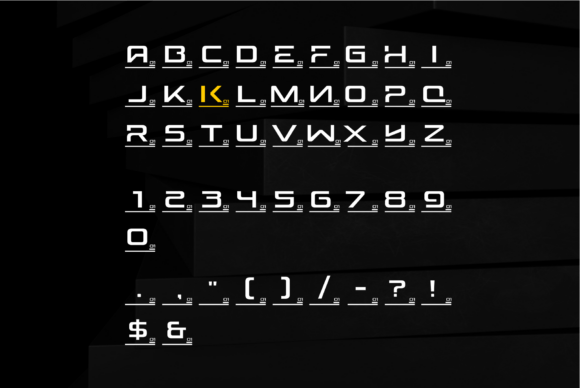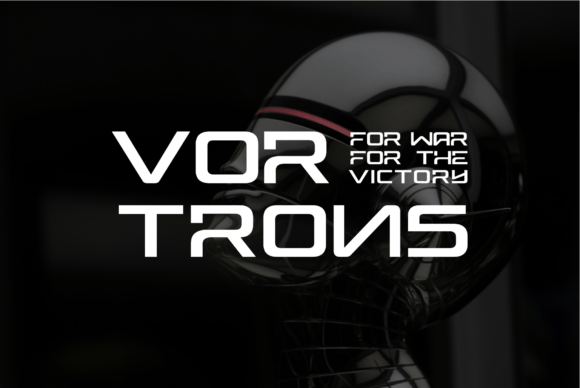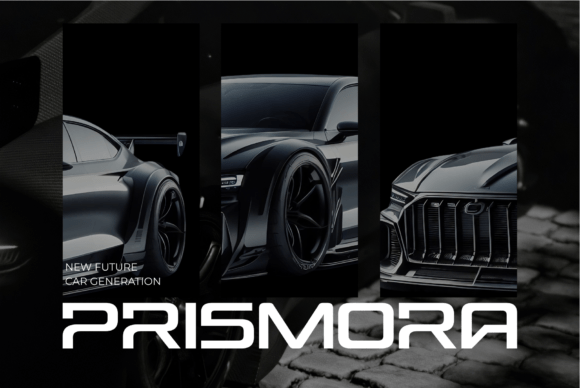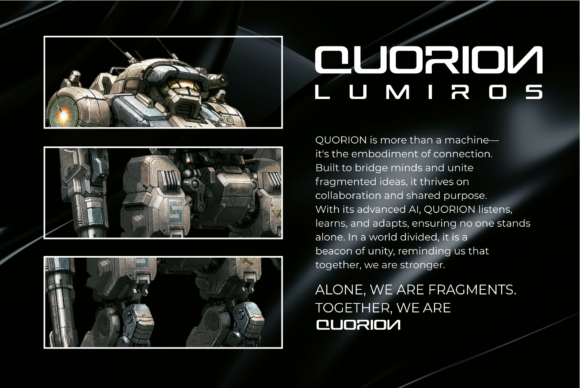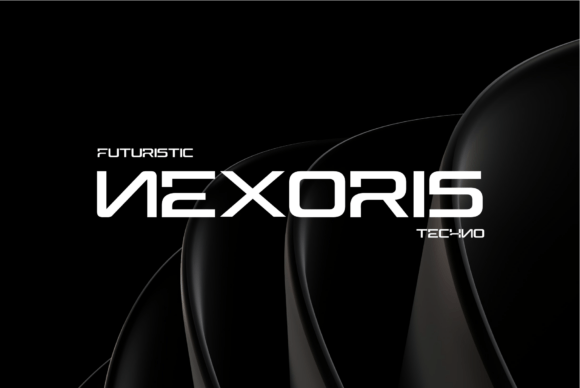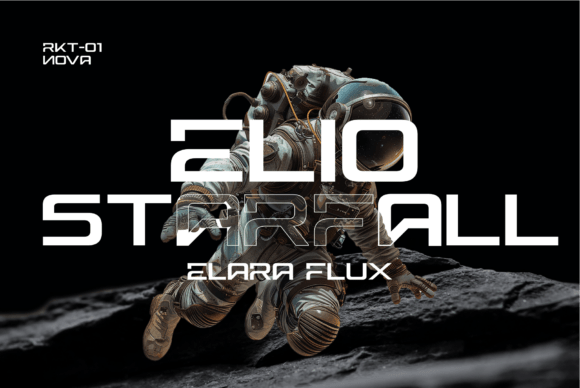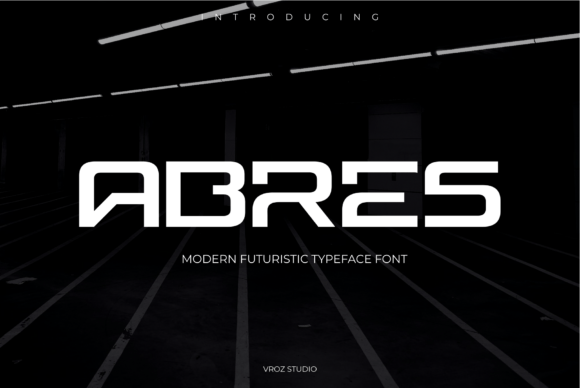
Introducing Abres Font: The Ultimate Modern Sans-Serif for Contemporary Design
In the realm of typography, fonts play a pivotal role in shaping the visual identity of a brand, product, or service. With the ever-evolving landscape of digital design, the demand for modern, versatile, and highly legible fonts has surged. It is in this context that Abres Font emerges as a groundbreaking, futuristic modern sans-serif font, meticulously crafted to meet the demands of clarity, precision, and contemporary design aesthetics.
Design Philosophy and Characteristics
Abres Font is distinguished by its geometric structure, clean cuts, and smooth transitions. This combination of features lends Abres a confident and forward-looking visual style that is perfectly suited for modern digital environments. The geometric foundation of Abres ensures a strong and stable appearance, while its clean cuts and smooth transitions contribute to its clarity and readability, even at smaller sizes.
One of the standout features of Abres Font is its versatility. It seamlessly integrates across a wide range of creative projects, including branding, technology-related designs, gaming visuals, posters, UI/UX layouts, and web interfaces. This adaptability makes Abres an invaluable asset for designers who work on diverse projects and need a font that can keep up with their creative demands.
Branding and Corporate Identity
In the context of branding and corporate identity, Abres Font offers a modern and sophisticated look that can elevate a brand’s visual presence. Its strong yet minimalist character ensures that it stands out without overpowering the overall design, making it an excellent choice for logos, business cards, and other marketing materials.
Digital and Gaming Applications
For digital and gaming applications, Abres Font’s clarity and precision are unmatched. Its futuristic aesthetic resonates well with tech-savvy audiences, making it ideal for UI/UX designs, game titles, and digital interfaces that require a modern and engaging visual style.
Typography and Design Flexibility
Abres Font pairs exceptionally well with other modern sans-serif fonts or classic serif fonts, providing designers with the flexibility to create clean and professional layouts. This compatibility is crucial for designers who aim to balance modernity with tradition or who need to adapt their design to different contexts and mediums.
Why Choose Abres Font?
Abres Font is a reliable choice for projects that require a futuristic tone with a modern and versatile foundation. Its unique blend of geometric precision, clean aesthetics, and smooth readability makes it an excellent tool for enhancing visual communication. Whether you’re working on a branding project, a digital application, or any creative endeavor that demands a modern edge, Abres Font brings a contemporary identity that communicates with precision, simplicity, and confidence.
| Font Name | Abres Font |
| Author | Vroz Studio |
In conclusion, Abres Font stands out as a premier choice for designers and crafters seeking a modern, futuristic, and versatile typeface. Its design philosophy, rooted in geometric structure and clean aesthetics, combined with its wide applicability across different design projects, makes it an indispensable asset in the world of contemporary design. With Abres Font, designers can achieve a perfect balance of form and function, ensuring their visual communications are not only aesthetically pleasing but also precisely conveyed.
Abres Font is more than just a typeface; it’s a design solution that understands the needs of modern digital environments and responds with a confident, forward-looking visual style. As the design landscape continues to evolve, fonts like Abres will play a crucial role in shaping the visual identities of brands, products, and services, making it an essential tool for anyone serious about creating impactful and engaging designs.